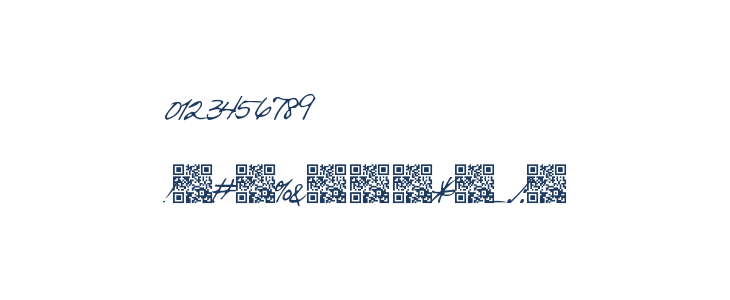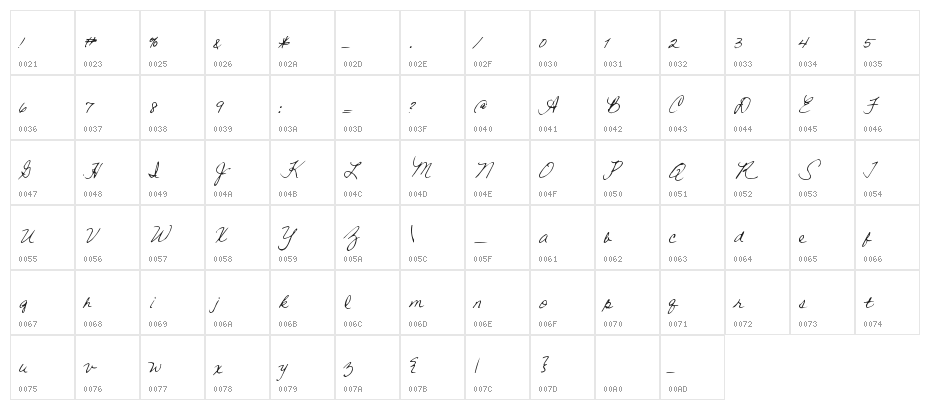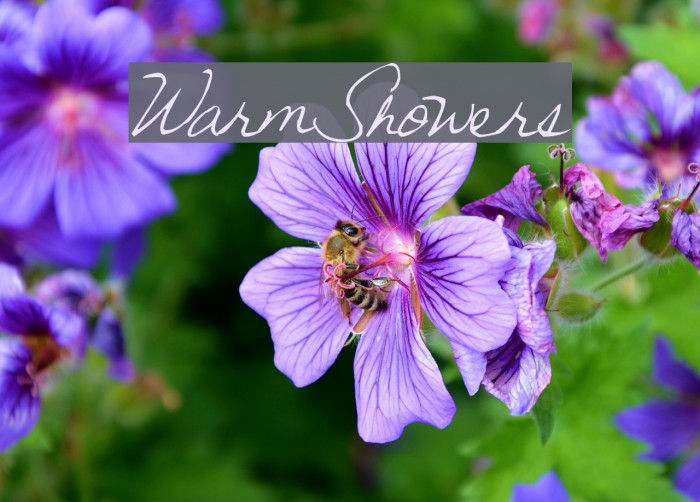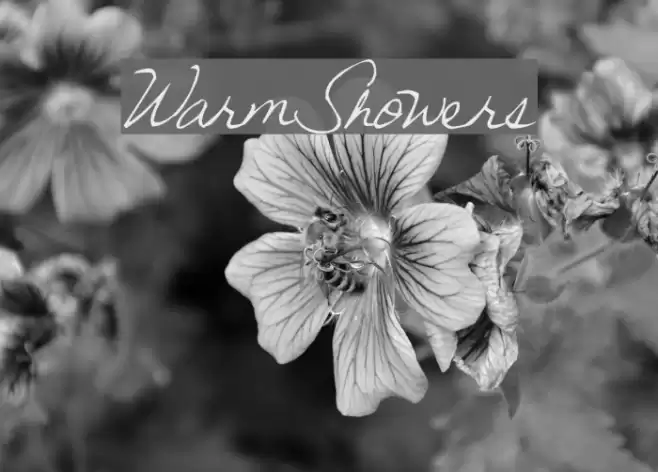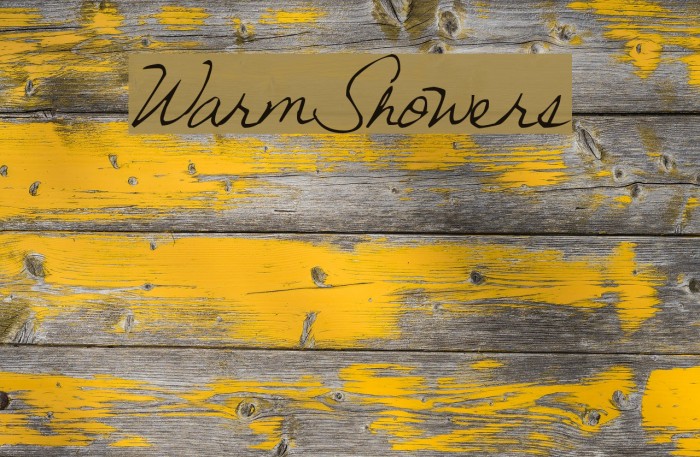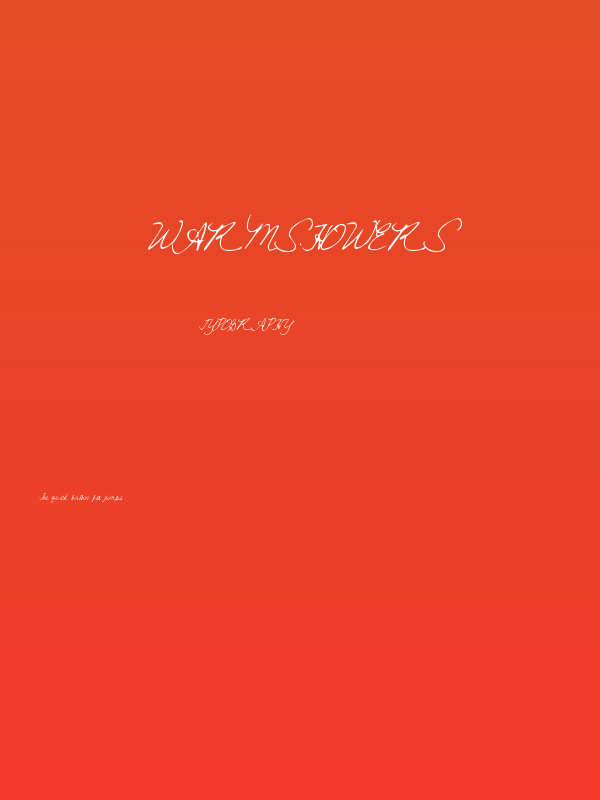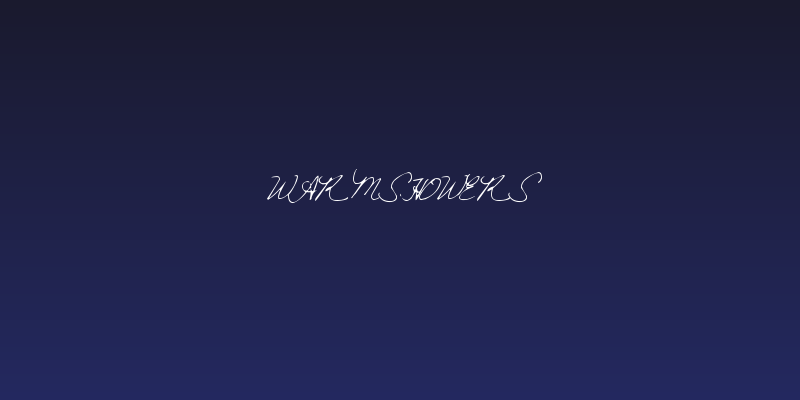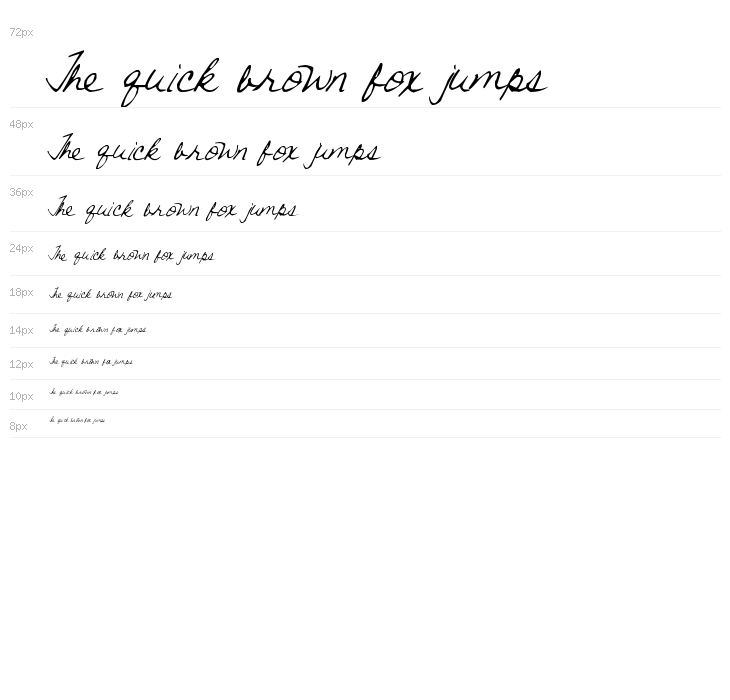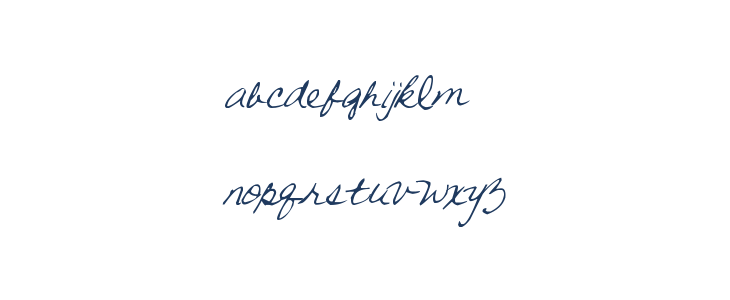
WarmShowers Font
WarmShowers Description
This elegant script font features a flowing, cursive style with a handwritten appearance. The characters are connected, creating a seamless and fluid look that mimics natural handwriting. The uppercase letters are slightly more ornate, with flourishes that add a touch of sophistication. The lowercase letters maintain a consistent style, complementing the uppercase with their smooth curves and loops. Numbers and special characters are designed to match the overall aesthetic, ensuring a cohesive appearance across all text. The font's delicate strokes and graceful lines make it ideal for projects that require a personal or artistic touch.